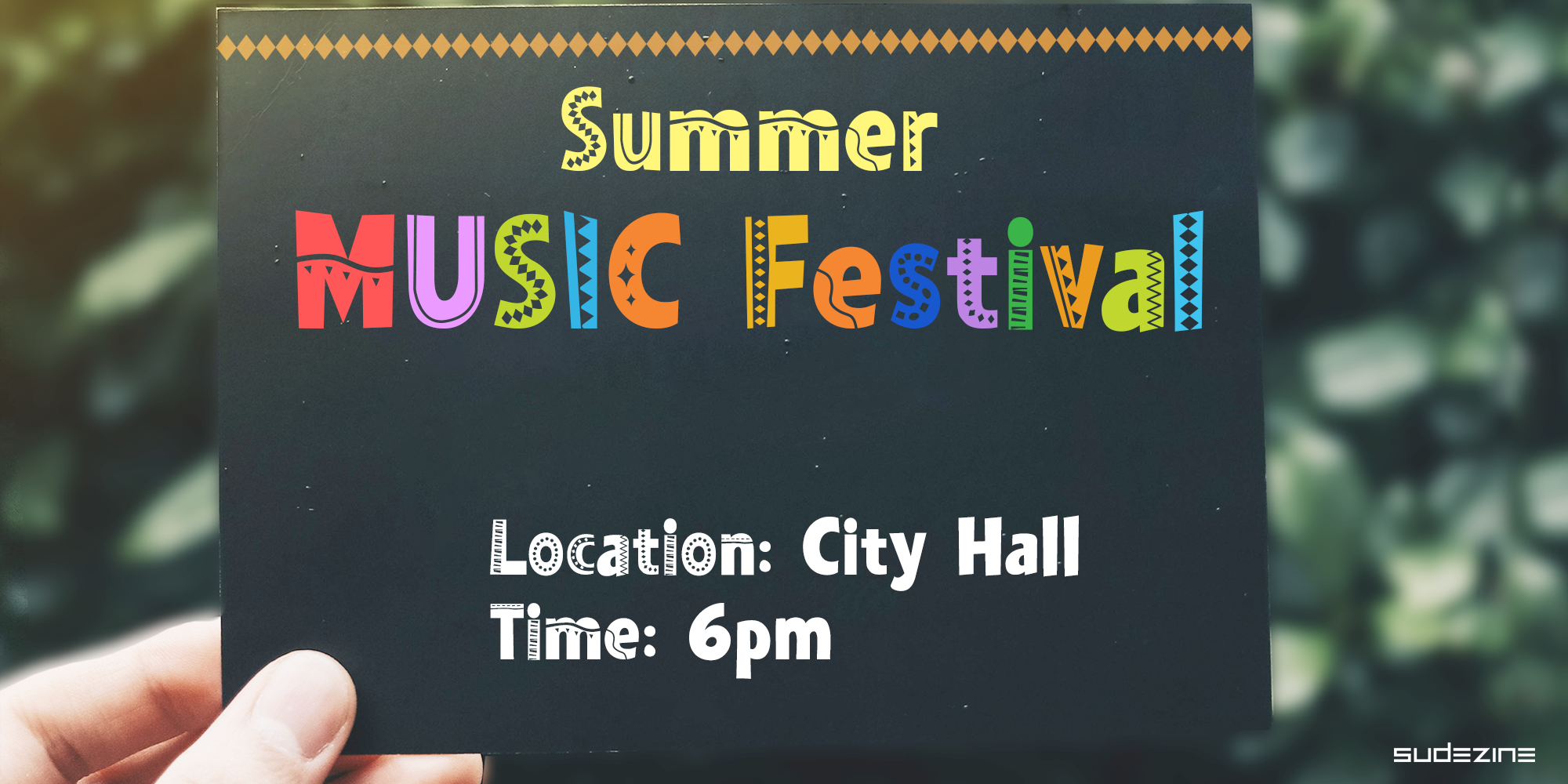
SDFestival Font is perfect for a wide range of design applications including music festival branding, cultural event promotions, celebration poster designs, concert venue signage, party invitation graphics, entertainment company logos, summer carnival materials, community festival banners, artistic event marketing, and vibrant editorial layouts.
What makes SDFestival Font exciting is its exuberant energy and celebratory spirit that perfectly captures the joyful atmosphere and dynamic excitement of festivals, concerts, and community celebrations. This vibrant typeface brings a sense of festive enthusiasm and cultural vitality to any project with its dynamically crafted letterforms that showcase rhythmic movement and celebratory flair. The font's energetic character shapes and festival-inspired proportions create an atmosphere of joyful celebration and community gathering that resonates with audiences seeking entertainment, cultural connection, and memorable experiences, making it an ideal choice for brands emphasizing celebration, community spirit, and festive entertainment.
The SDFestival Font family includes multiple weights and styles designed to accommodate various celebration and entertainment design requirements. The collection typically features regular, bold, condensed, and decorative variations, each maintaining the font's signature festive aesthetic while providing comprehensive design flexibility. Additional celebration symbols and musical ornaments enhance the family's creative potential for event-focused design projects.
This premium SDFestival Font Free Download represents an outstanding opportunity for designers to explore celebration typography trends with authentic festival appeal. The font's innovative approach incorporates dynamic event design principles and contemporary celebration aesthetics that bring genuine festive authenticity to modern entertainment and cultural projects. Its versatile nature makes it suitable for both digital applications and print materials, ensuring consistent brand representation across entertainment, cultural, and event sectors.
Professional designers appreciate SDFestival Font's exceptional vibrancy and comprehensive character support. The font includes extensive punctuation marks, numerical figures, celebration symbols, and international language capabilities, making it perfect for global festival brands and international cultural events. Its festively optimized spacing and kerning ensure professional results in event marketing, signage, and celebration branding applications.
The growing popularity of SDFestival Font in the entertainment community reflects its ability to enhance event identity and create memorable visual experiences that celebrate cultural diversity and community celebration. Whether used for music festival branding, cultural event materials, or celebration creative projects, this font delivers exceptional results that honor the joyful spirit of festivals and community gatherings.